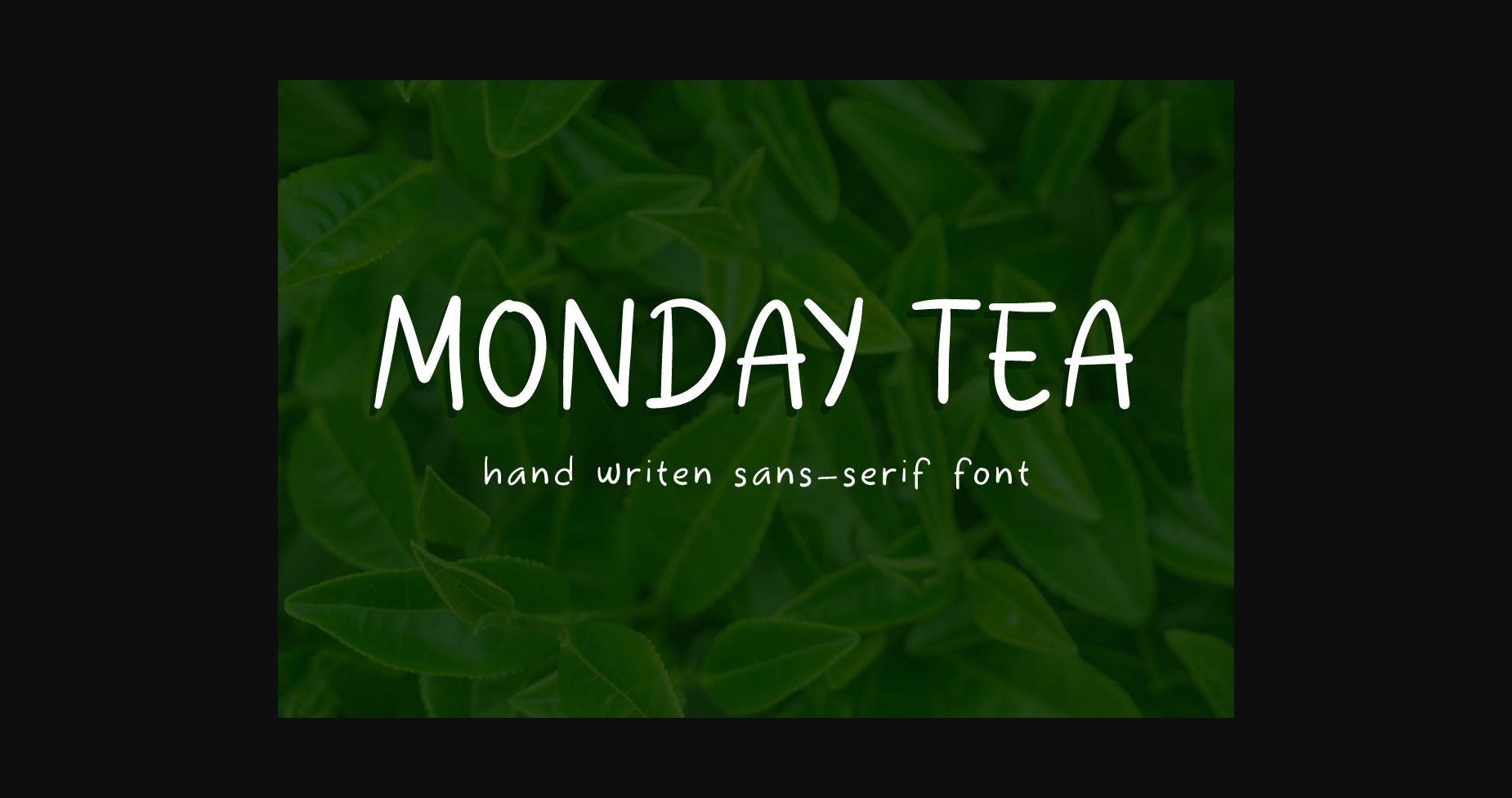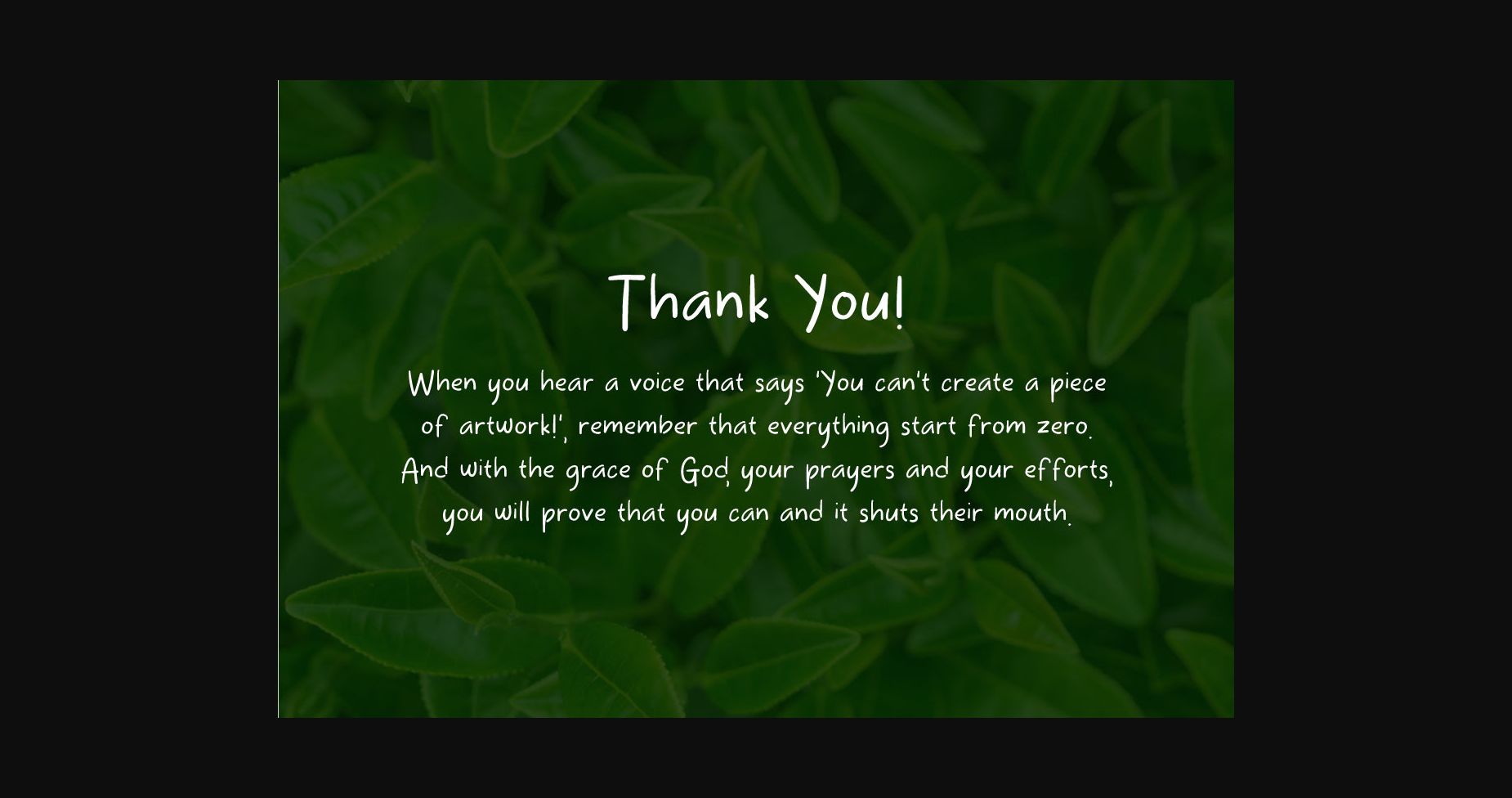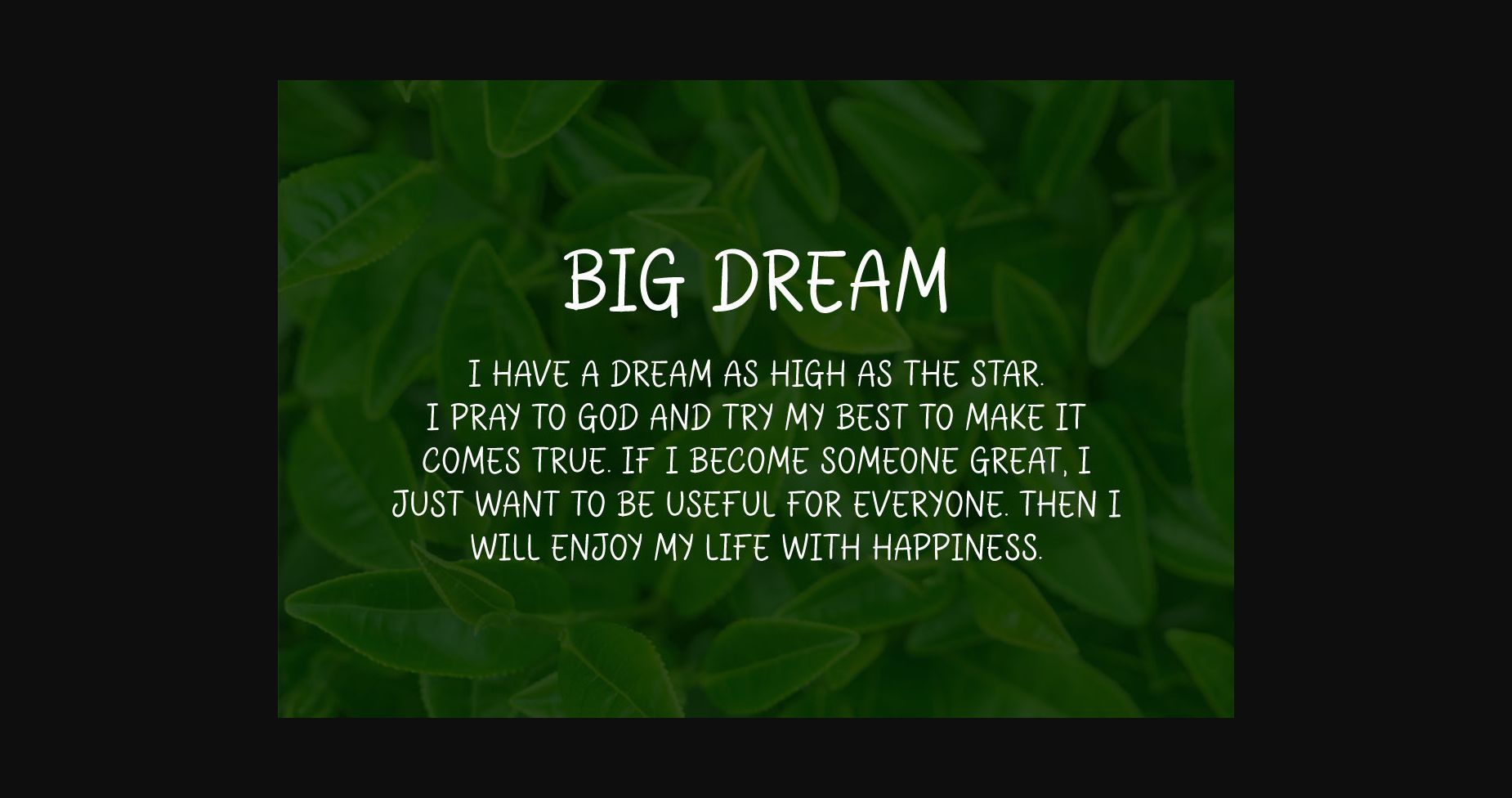
About Monday Tea Font
Monday Tea is a sweet and adorable handwritten font. No matter the topic, this font will be an incredible asset to your fonts’ library, as it has the potential to elevate any creation.